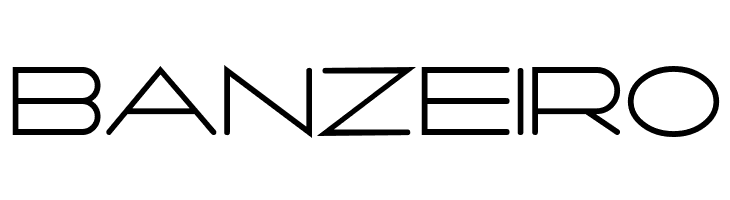
BEDIGHTrial-Regular Font
- Font: BEDIGHTrial-Regular
( Fonts by Patrick Broderick )
A sleek, modern font with geometric lines and a monospaced appearance.